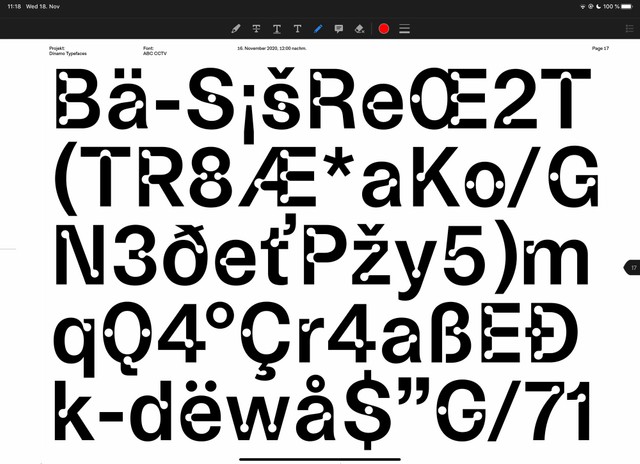
New Student Font Pack
Dinamo Goes Information Age
As our catalog grows, we know that we need to continue improving on how we show and share our typefaces. We’re still learning how to best present our fonts on our new website, and so we’re currently testing a few new options as part of our ongoing information age initiative.
To help you compare our fonts, we’ve added an additional entry point to our catalogue, which lets you see an overview of all our typeface. We hope you enjoy floating in the waterfall of their styles and italics.
On our homepage, there’s now a three-column overview of our released typefaces, early access fonts, and what’s in the pipeline. There’s always lots of stuff going on over here. Writing things down helps to clear the mind, and writing things down publicly puts a bit of pressure on us to live up to our promises ;-)
Work & Travel
ABC CCTV
Remotely, we’re currently extending a couple of typefaces that have been sitting in our drawers for a while. And we’ve been moving long-time collaborations over the finishing line too! Once ready, the following will appear on our Early Access page before slowly making their way to our Retail Library:
• ABC CCTV with Sascha Bente
• ABC Helveesti with Andree Paat
• ABC Diatype Condensed with Renan Rosatti
• ABC Gravity by Robert Janes
• ABC Social with Wei Huang & Malte Bentzen
• ABC Walter with Omnigroup (Simon Mager & Leonardo Azzolini)
• ABC Simon by Rob & JP Haynie
• ABC Whyte Mono with Fabiola Mejía
• ABC Repro by Erkin Karamemet
• ABC ROM by Seb McLauchlan
• Meanwhile, our font developer Rob escaped and is working from Vigo in the northwest coast of Spain. The rest of the Berlin studio has been rotating between home office and studio, to keep the risk of the virus’s spread low.
• Last week, we participated in an online symposium about Font Licensing organised by ECAL. We enjoyed discussing our new pricing with sparring partners Jonas Nicollin (Independent/Base Design), Mary Catherine Pflug (Monotype) and the students of ECAL’s type design master course. Thank you Ondrej Bachor and Matthieu Cortat for inviting us.
• Zurich-based Kaj Lehmann is putting the finishing touches on his long-awaited ABC Synt. Mostly this means kerning. Bless him.
Dinamo Bespoke Projects
RIMOWA: An Archive, Since 1898. Photo: Christian Hagemann
A new book about the history of Cologne-based luxury travel manufacturer RIMOWA has been published by Rizzoli in New York. If you look closely enough, you’ll see a certain new bespoke typeface that we developed for the company in use for the first time. The book design and RIMOWA identity are by our friends Commission Studio in London. More in 2021.
• Glyphs has relaunched its website and just published a much anticipated new version of its software: Glyphs 3.0.1. Its entirely powered by our Sans-to-Serif Variable Font ABC Arizona (by Elias Hanzer), which has been implemented in a multitude of LIT ways. It’s a good looking proof-of-concept that Variable Fonts allow for a wide range of visual expressions while still keeping file size slim and fast. Congrats to the Glyphs team Andrea, Matteo, Chris, Abel, Georg, & Rainer.